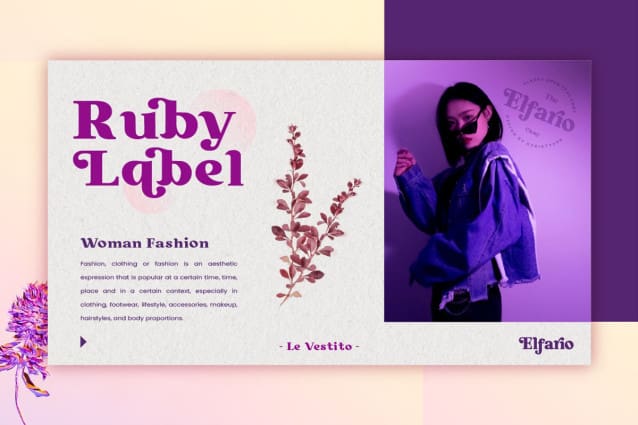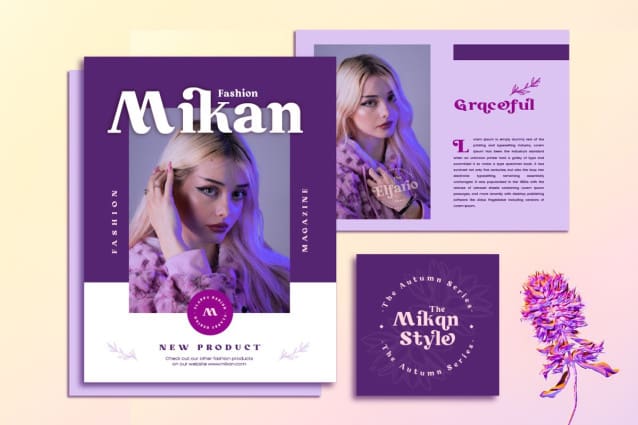
Elfario Font
Elfario Font is a classic high-contrast serif font that exudes sophistication and elegance. Its tall, thin letterforms and dramatic thick-to-thin strokes make it perfect for luxurious branding, editorial design, and high-end fashion projects.